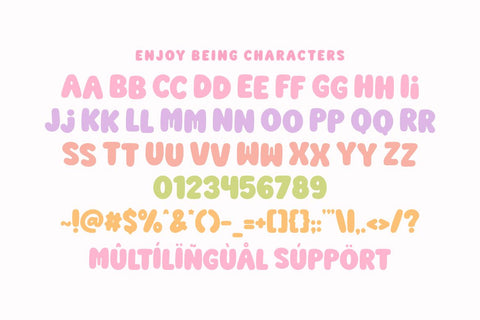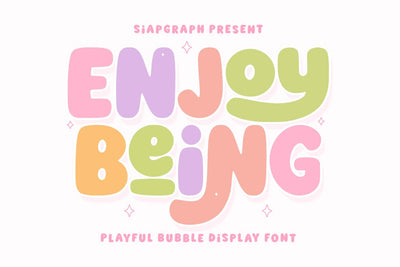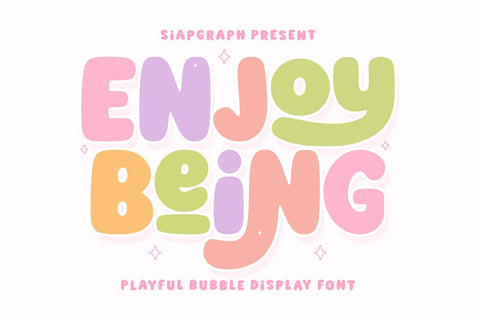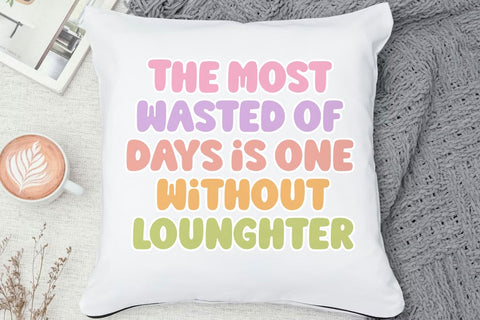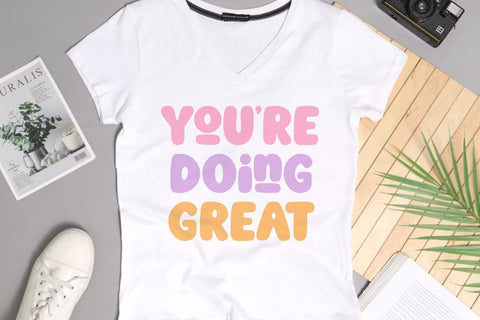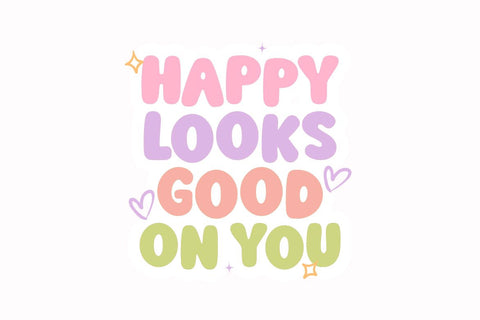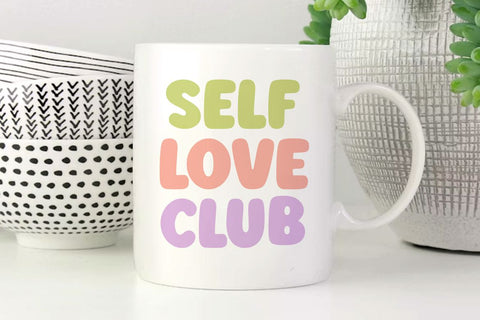
Enjoy Being - Playful Bubble Font
Enjoy being is a playful bubble display font that radiates positivity and cheerful vibes. Featuring soft, rounded letterforms and a bouncy, approachable aesthetic, this typeface is perfectly crafted for designs that need to look friendly and fun. Its clean, bold construction is specifically optimized for the crafting community, ensuring a seamless and easy cutting experience for all your vinyl projects, sublimation, and digital creations.
Perfect for: creating high-converting SVG cut files, personalized kids' apparel, vibrant vinyl stickers, custom festive mugs, nursery wall art, party invitations, and playful social media branding. Whether you are a professional Print on Demand (POD) seller or a dedicated DIY enthusiast, this font offers the perfect balance of readability and whimsical charm for any project.
Great for holiday themes such as Birthdays, Summer parties, Children's Day, and Valentine's Day, adding a sweet, optimistic, and bubbly personality to your seasonal design collections!